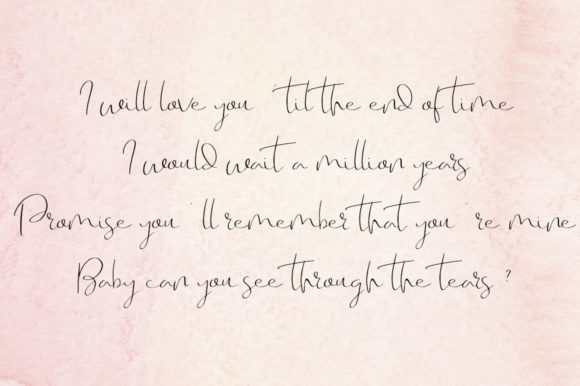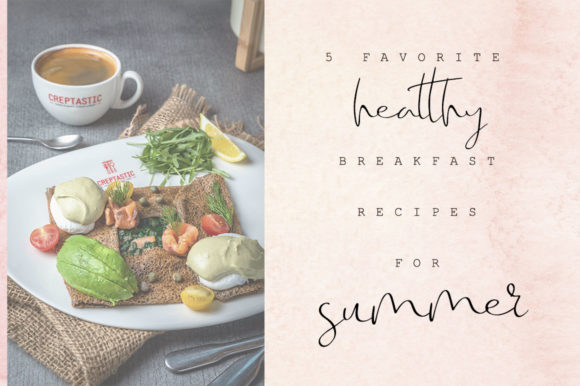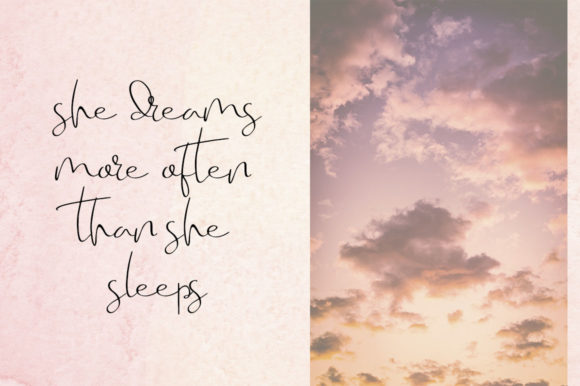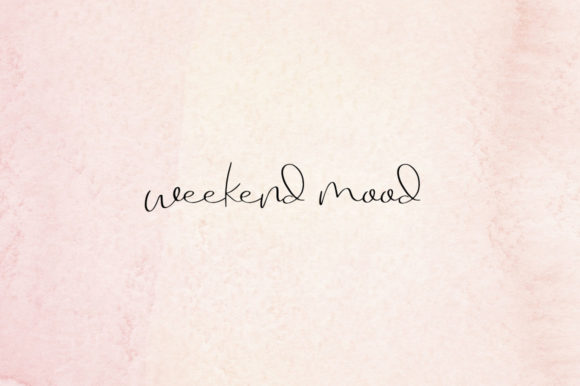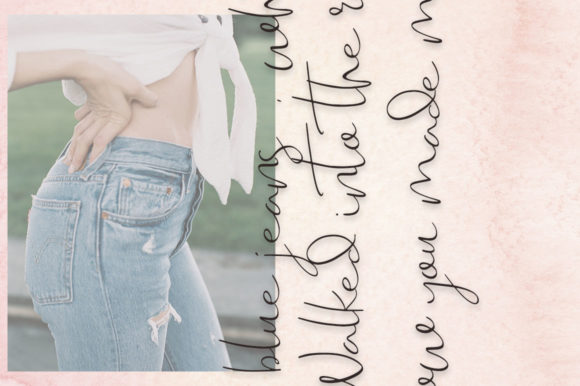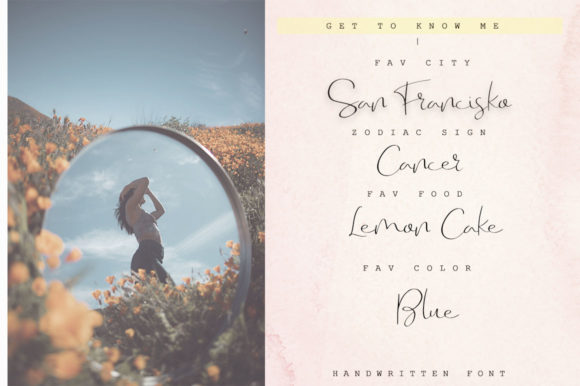
Germiona Font
About Germiona Font
Germiona is modern and unique font, and every single letter has been carefully crafted to make your design ideas look stunning.